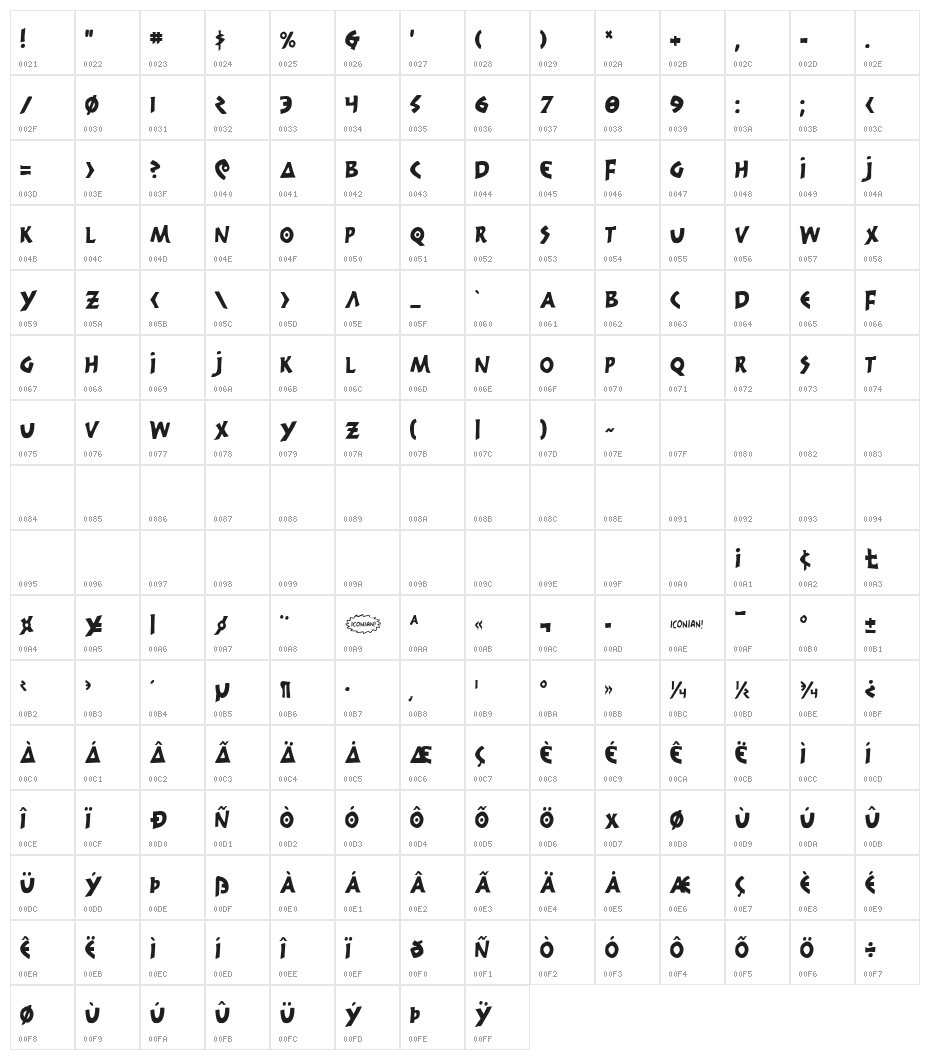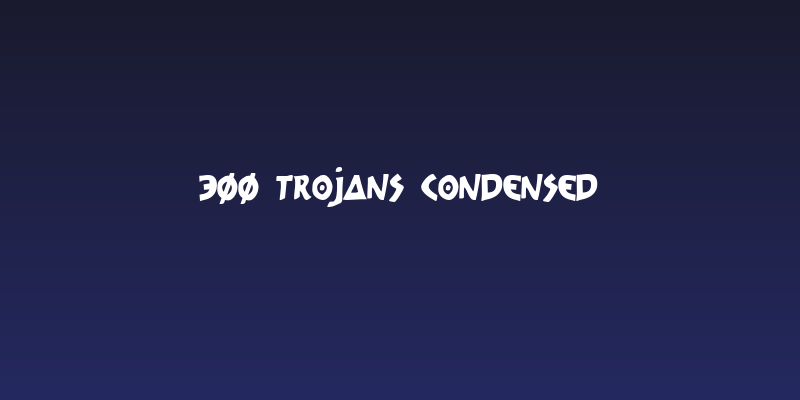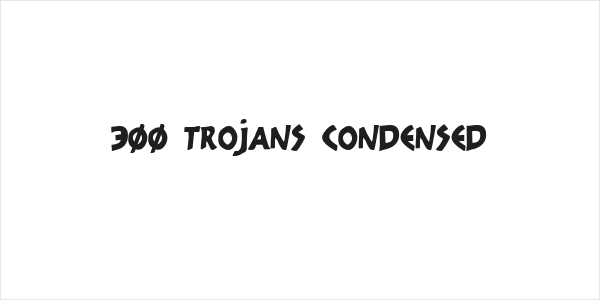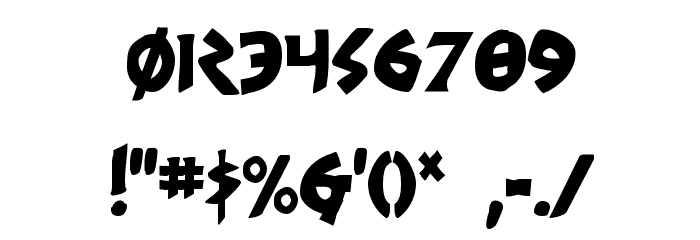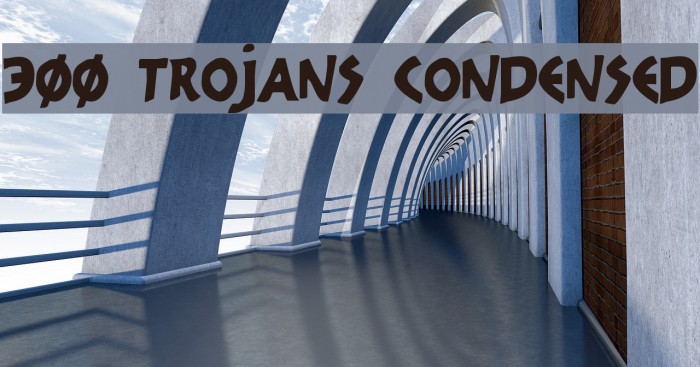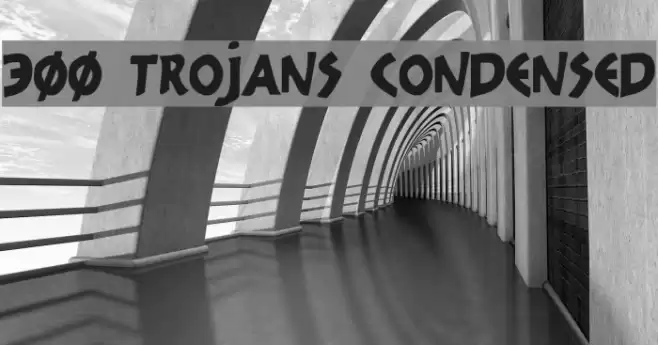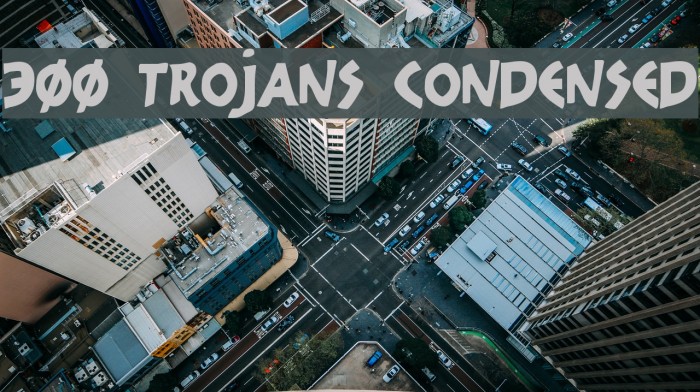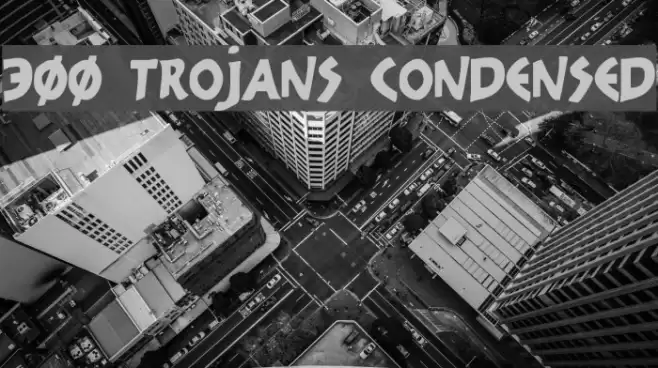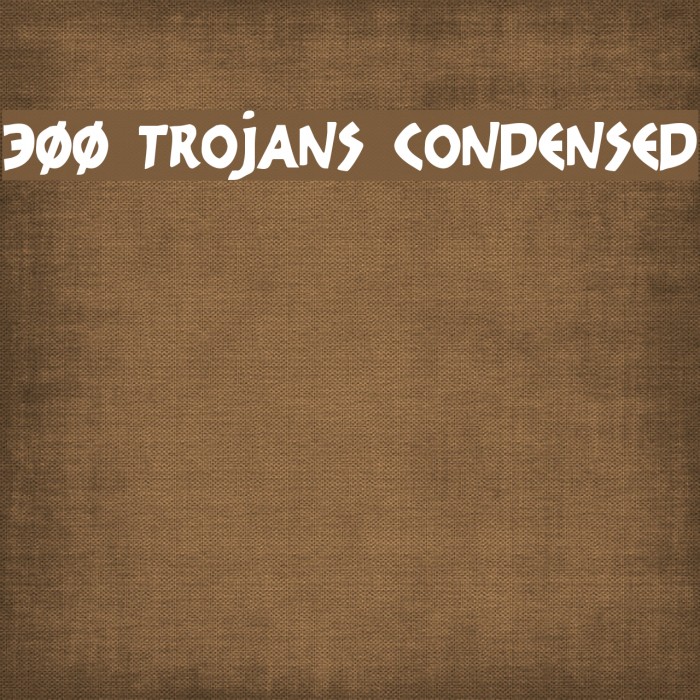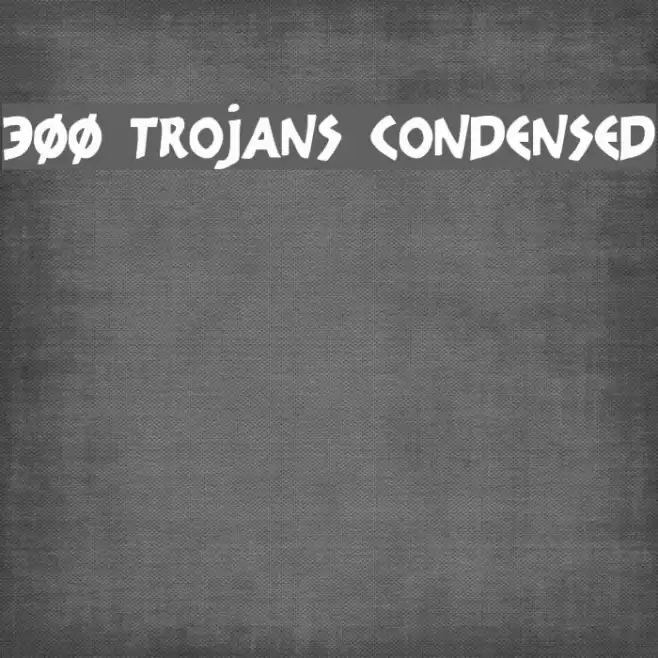
300 Trojans Condensed Font
300 Trojans Condensed Description
This font features a bold and dynamic style with sharp, angular edges and a condensed form. The uppercase letters are particularly striking, with a strong geometric influence that gives them a powerful presence. The lowercase letters maintain the same boldness, ensuring consistency throughout. Numbers and special characters are equally robust, making them suitable for impactful displays. The overall design is reminiscent of ancient or historical themes, lending a sense of drama and intensity to any text. This font is ideal for projects that require a strong visual impact, such as posters, logos, or titles.